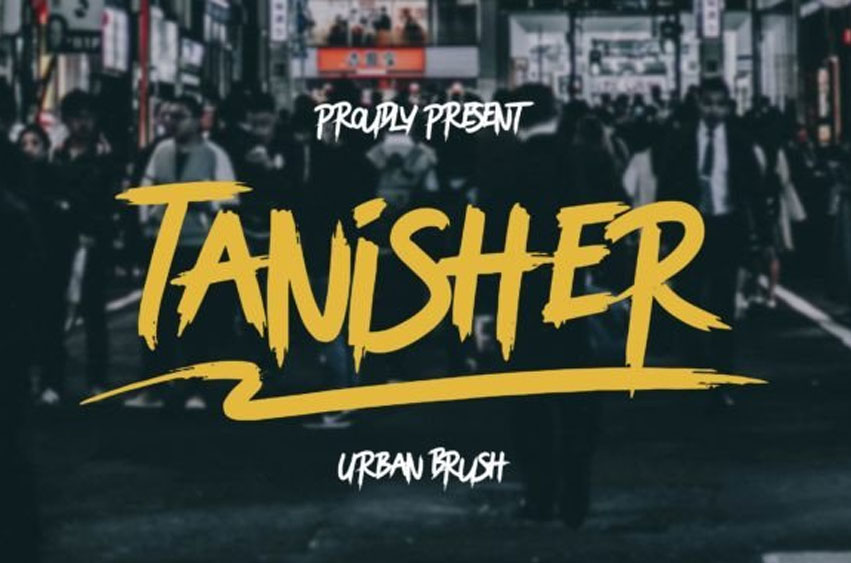
Tanisher Font
Tanisher Font the Urban Brush font that blends street style with sophistication. Its bold strokes and modern edge make your words pop on any design, from posters to logos.
Perfect for those looking to stand out with a touch of urban flair!